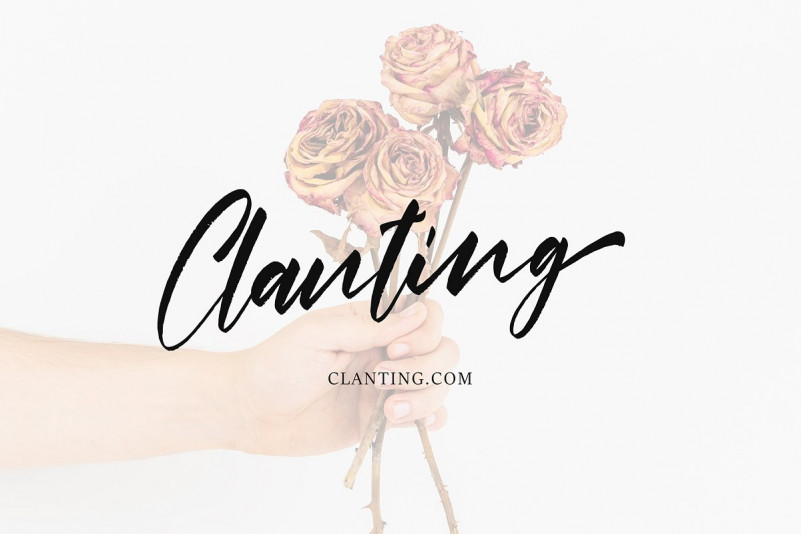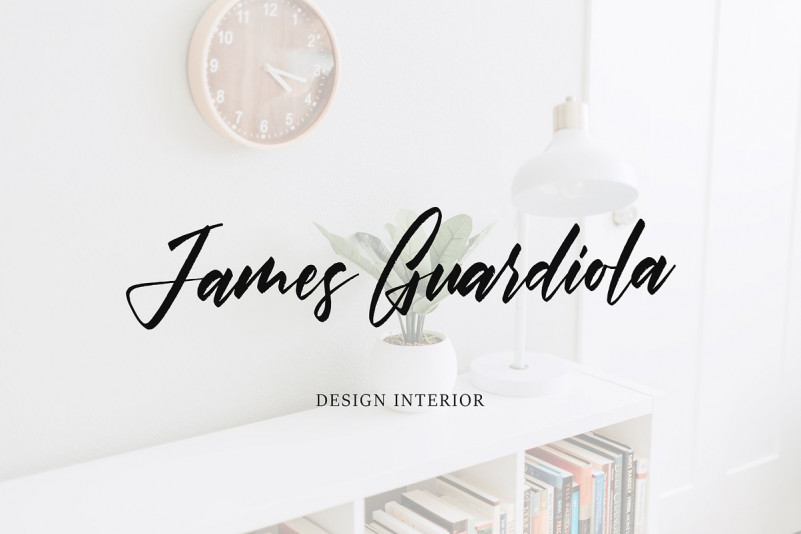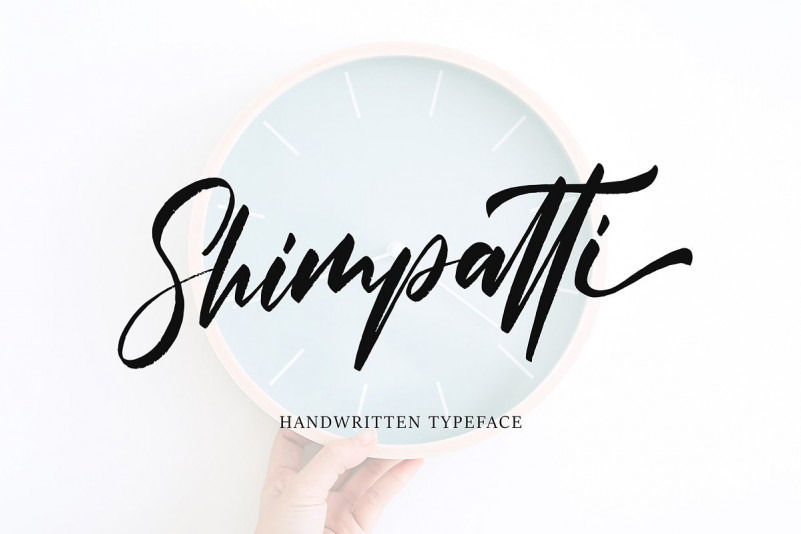
Shimpatti Font
Shimpatti with modern Handwritten style, this font will perfect for many different project ex: quotes, logo, blog header, poster, banding, fashion, apparel, letter, invitation, stationery, etc…